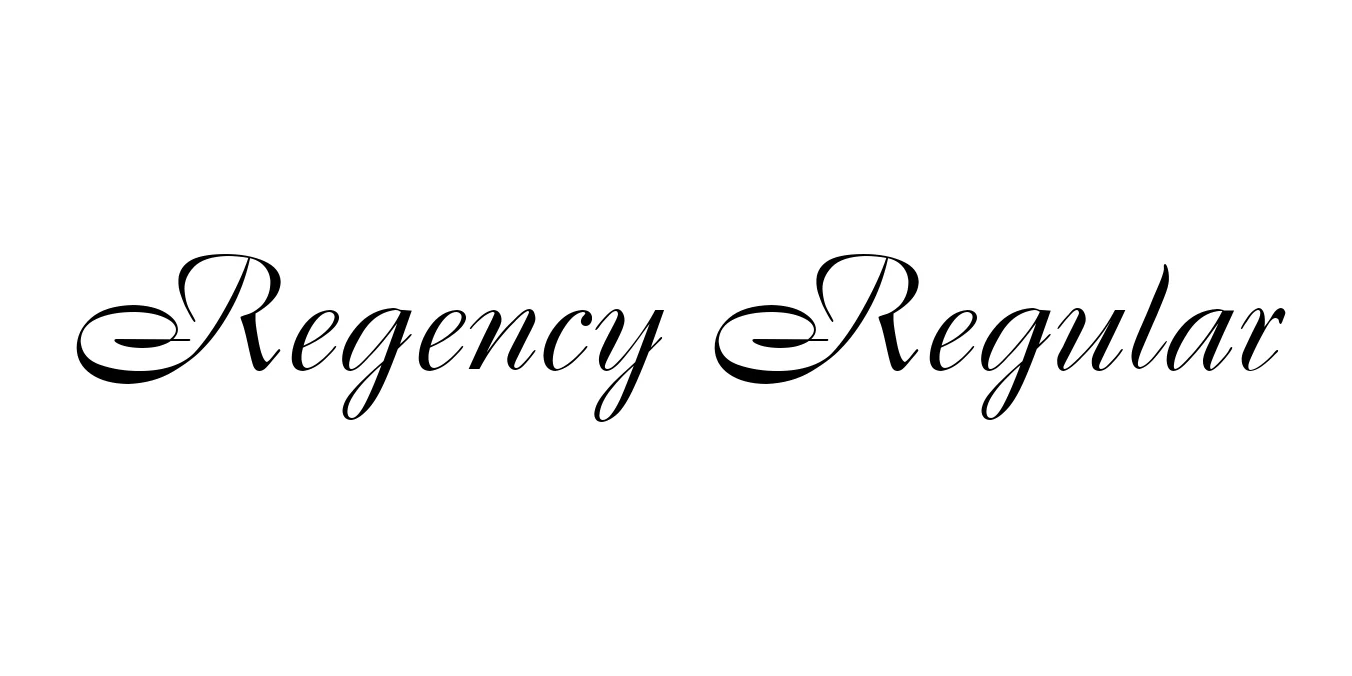
Regency Regular
Designed by Alan Meeks
Regency Regular was designed by Alan Meeks in 1982 for Letraset. It is an exquisite formal script that draws inspiration from the copperplate calligraphy of the late 18th and early 19th centuries. The typeface is characterized by its high contrast between delicate hairlines and bold downstrokes, creating a sophisticated and rhythmic visual appeal that captures the essence of traditional British handwriting and classic elegance.
Throughout the digital era, Regency Regular has maintained its status as a premier choice for high-end design projects that require a touch of class. Its flowing curves and refined structure make it exceptionally suited for formal stationery, diplomas, and luxury packaging. The font’s timeless elegance ensures that it remains a favorite among designers looking to convey a sense of prestige, heritage, and classical beauty in modern layouts.
Regency Regular Best Uses
Provides a classic and romantic touch to formal event announcements and envelopes.
Excellent for high-end logos, perfume packaging, and boutique retail signage.
Adds an air of authenticity, tradition, and prestige to awards and official diplomas.
Perfect for sophisticated seasonal messages that require a personal, handwritten feel.